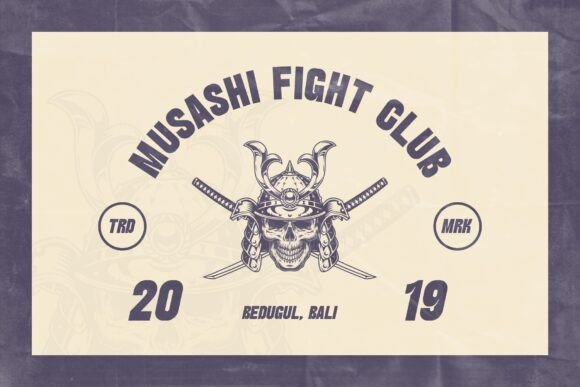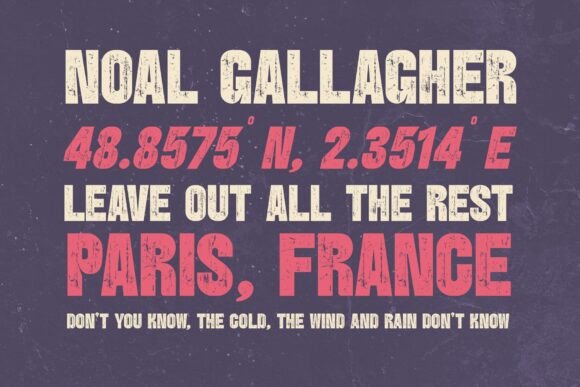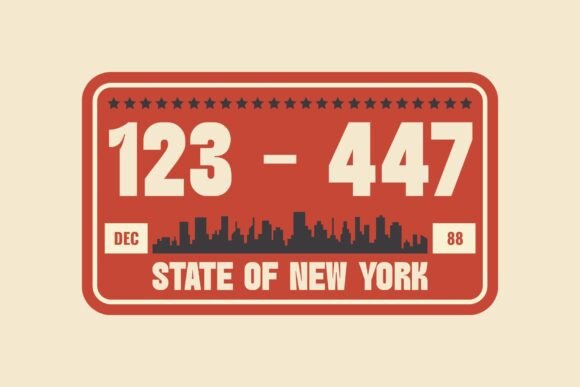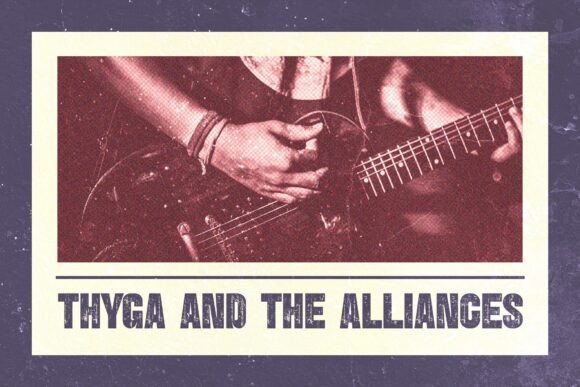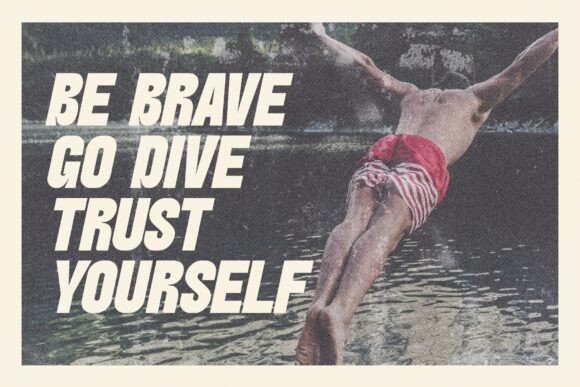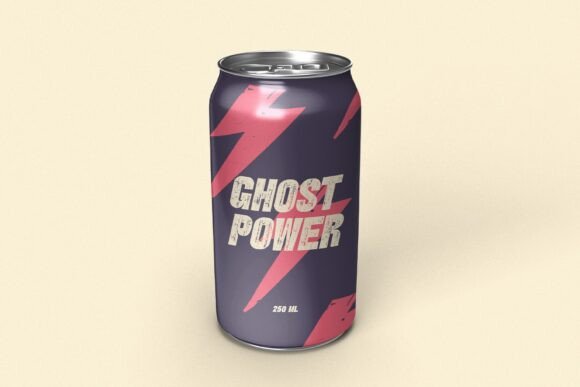
Timeless Style Meets Modern Flair
Have you ever stared at a blank design canvas, unsure of how to capture the essence of your creative vision? The moment of uncertainty is all too familiar for designers, but what if you had the perfect tool to bring your ideas to life? That’s where Bourne Font comes in – a bold, retro display typeface designed to infuse your designs with a captivating vintage aesthetic.
With its versatile styles and clean geometric shapes, Bourne Font is the perfect addition to any designer’s toolkit. Whether you’re working on a modern marketing campaign or a nostalgic-themed project, this typeface balances boldness and elegance to leave a lasting impression. By incorporating Bourne Font into your creative projects, you’ll be able to elevate your designs and make a statement that resonates with your audience.
Bourne Font Key Features
- Font Family: Bourne is a sans-serif font family designed for readability and versatility.
- Character Set: Bourne supports a wide range of languages, including Latin, Cyrillic, and Greek scripts, making it suitable for global applications.
- Unique Characteristics: Bourne features a clean, modern design with a focus on legibility, making it an excellent choice for body text and headings in digital media.
Bourne Font Review
When I first laid eyes on the Bourne Font, I was immediately drawn to its sleek, modern aesthetic ✨. The clean lines and geometric shapes give it a very contemporary feel, making it perfect for use in logos, branding materials, and digital interfaces.
The font’s versatility is another major plus ✨. It’s suitable for both title and body text, and its legibility makes it easy to read even at smaller font sizes. The font’s sans-serif design also lends itself well to use in a variety of contexts, from fashion to technology.
While the Bourne Font is a solid choice, there are a few limitations to consider ⚠️:
- Lack of italic or oblique styles, which may limit its use in certain situations.
- No support for ligatures, which may affect its performance in certain languages.
- The font’s limited character set may not be suitable for use in languages that require a wider range of characters.
Overall, the Bourne Font is a solid choice for designers looking for a modern, versatile sans-serif font ✨. While it may have some limitations, its clean design and excellent legibility make it a great addition to any design project.
Tip: Use the Bourne Font for headings and titles to add a touch of sophistication to your designs.
Tip: Use the Bourne Font for typography-heavy designs, such as posters or brochures.
Tip: Use the Bourne Font for presentations and documents where a clean and modern look is desired.
The Bourne Font is ideal for:
- Typography-heavy designs, such as posters or brochures.
- Presentations and documents where a clean and modern look is desired.
- Headings and titles to add a touch of sophistication to designs.
Remember to use the Bourne Font in moderation to avoid overwhelming the design.